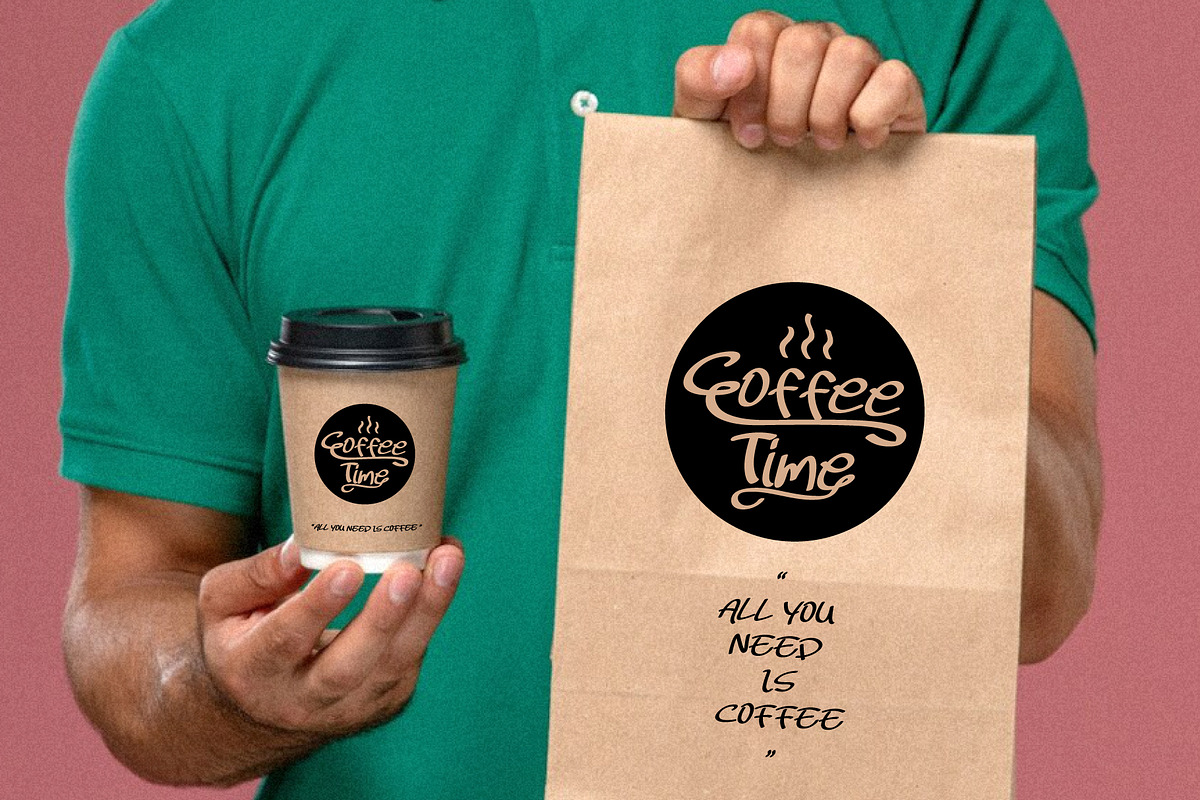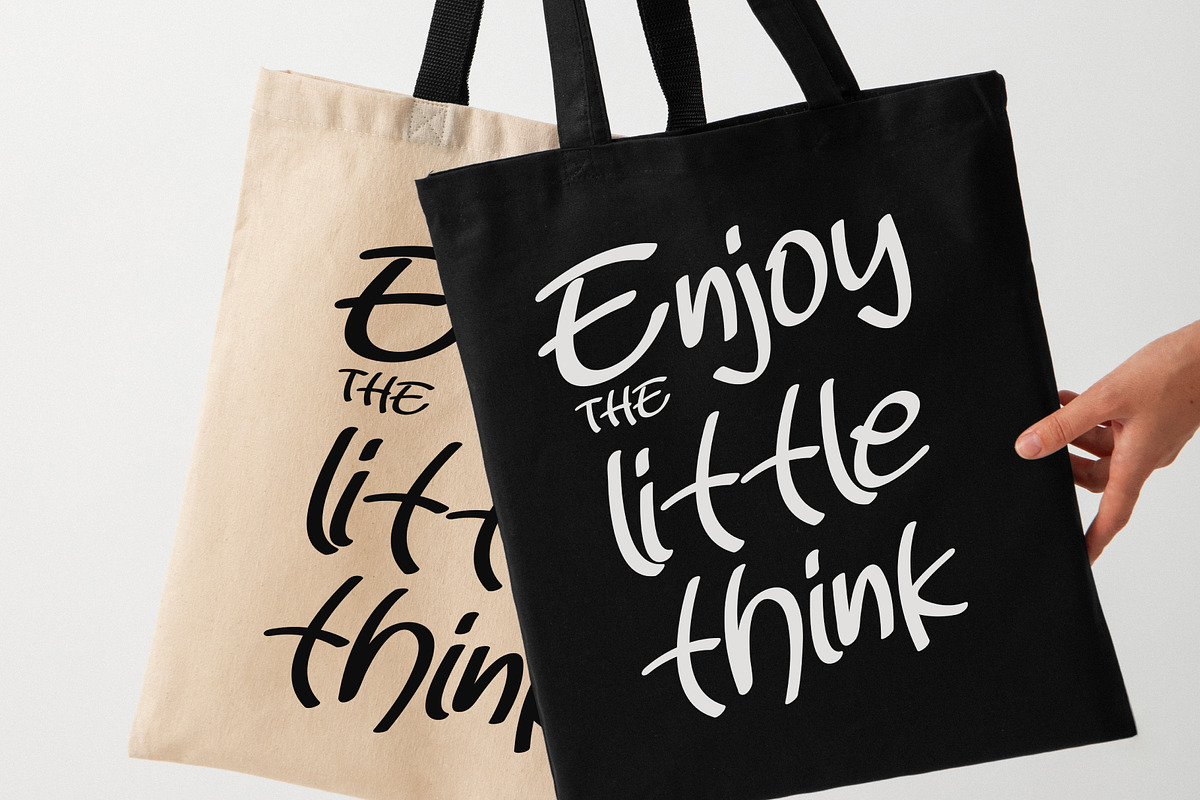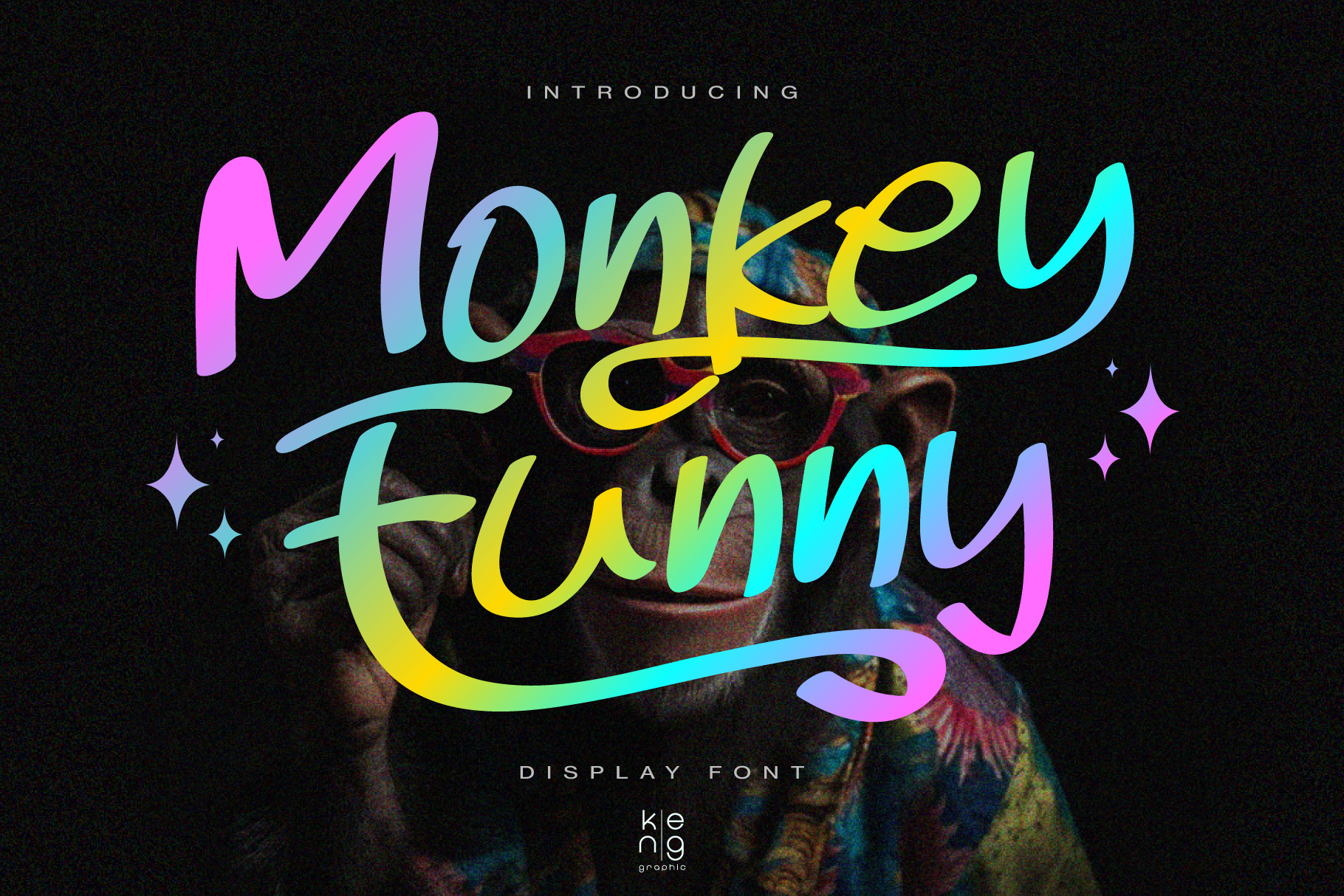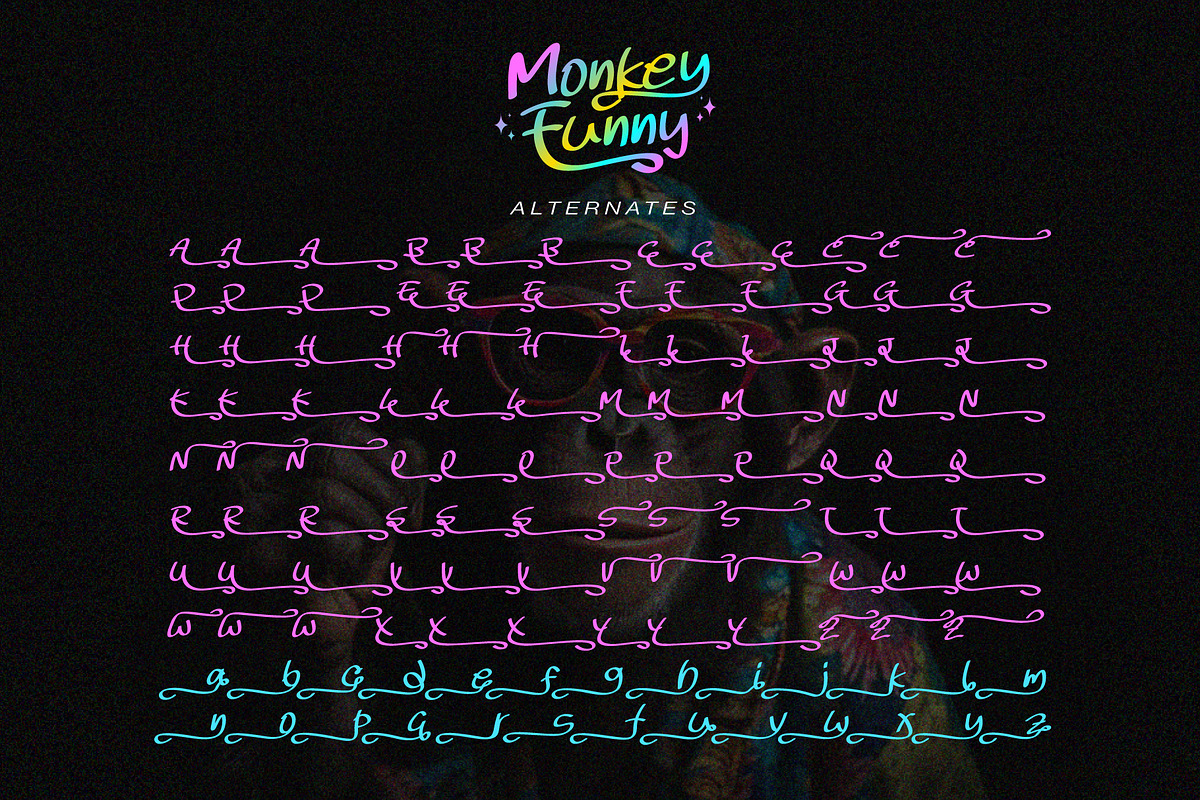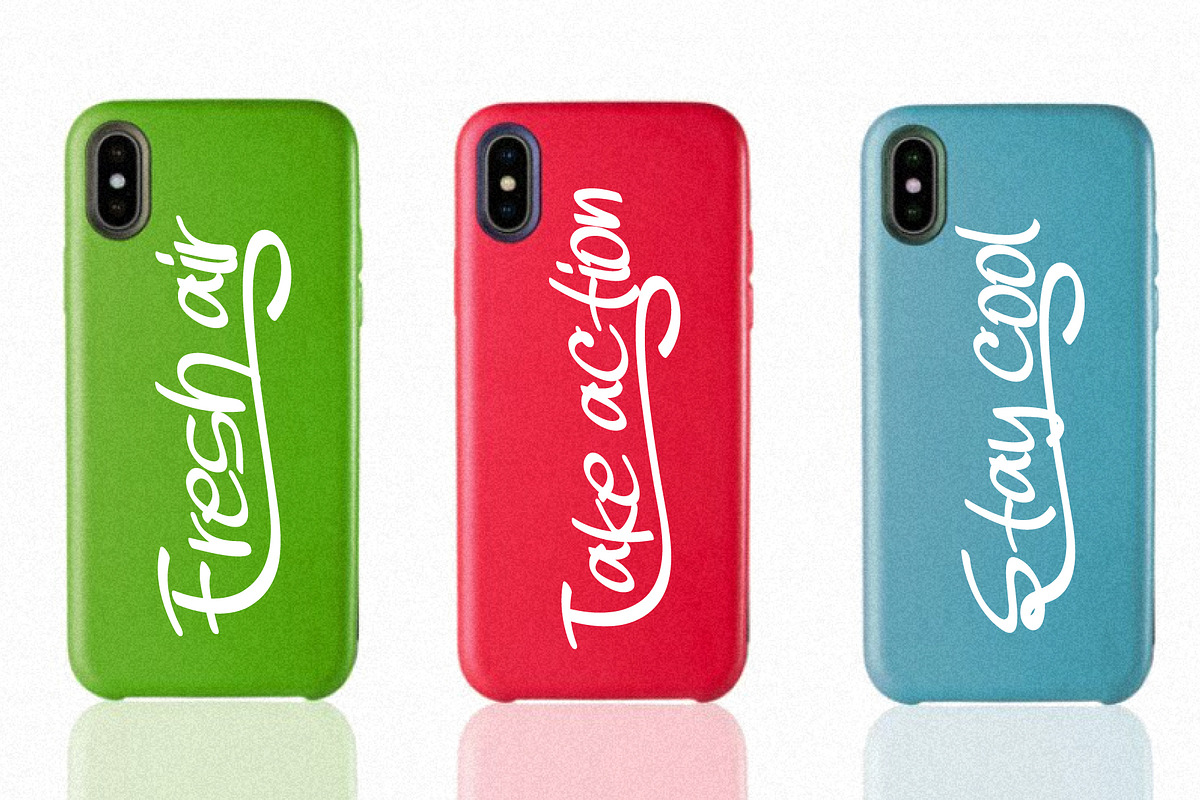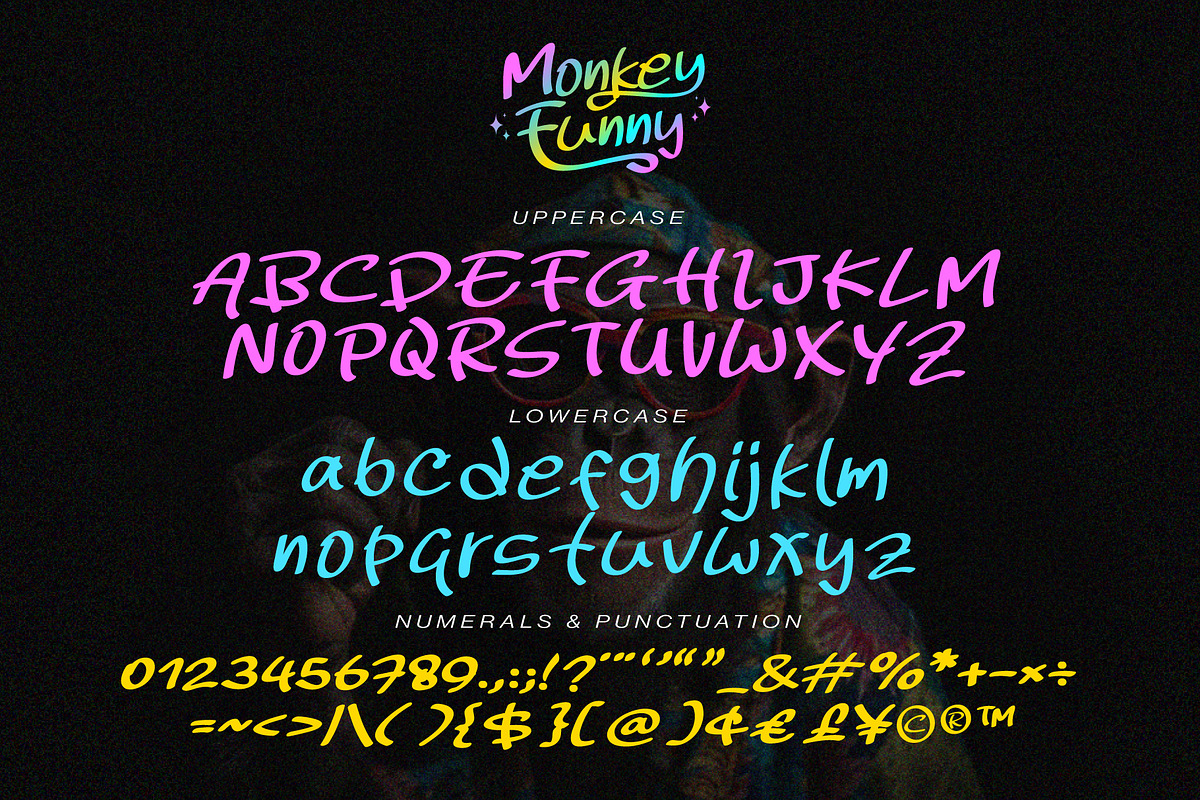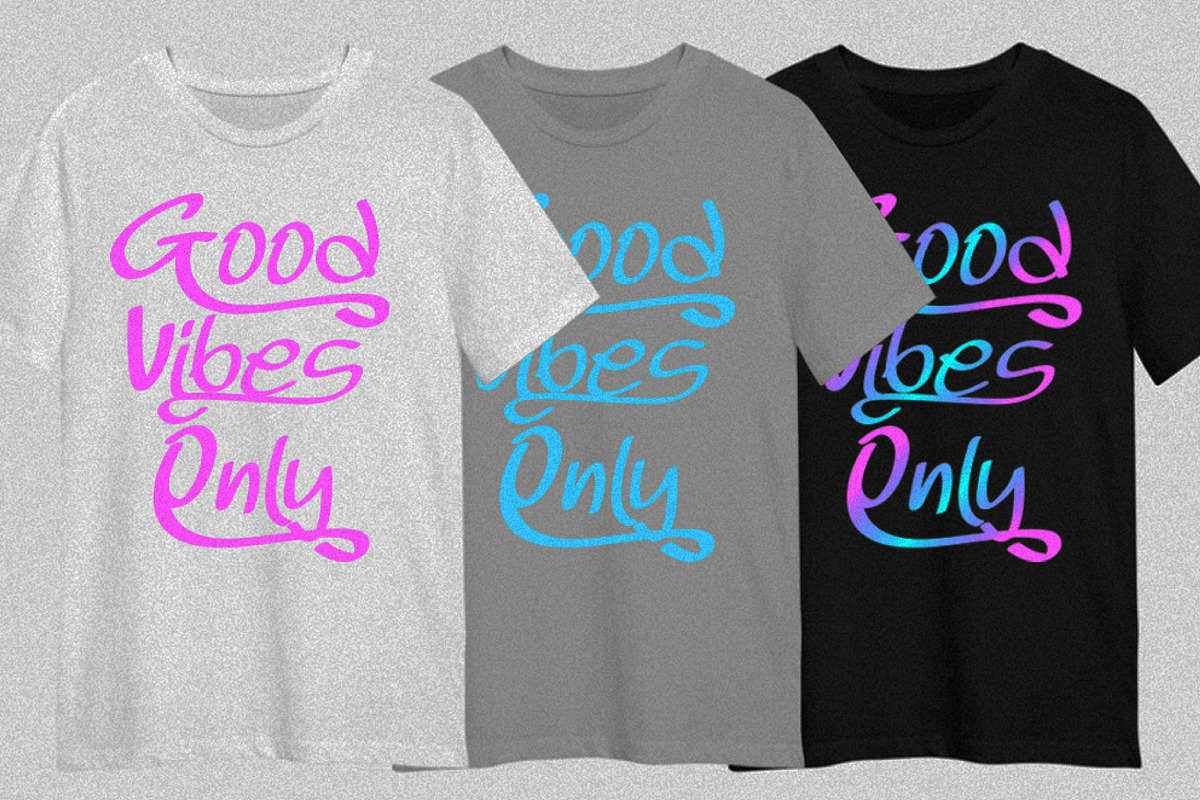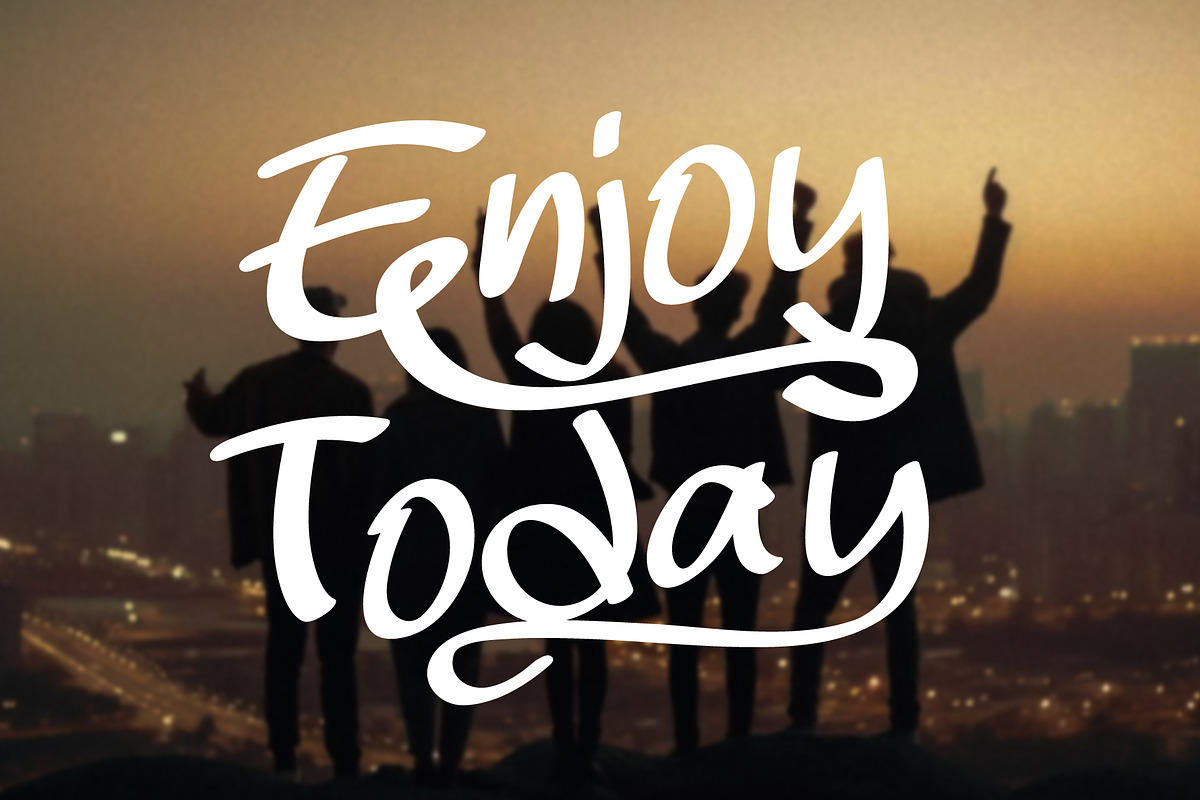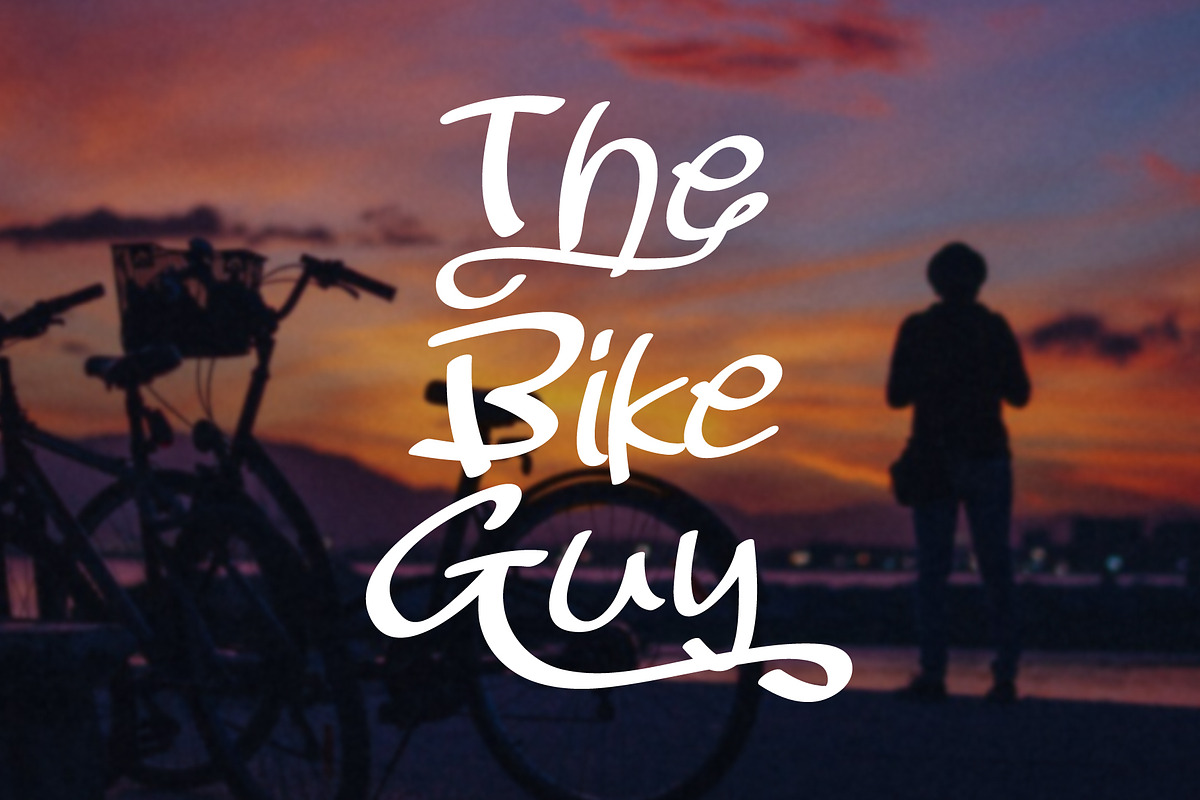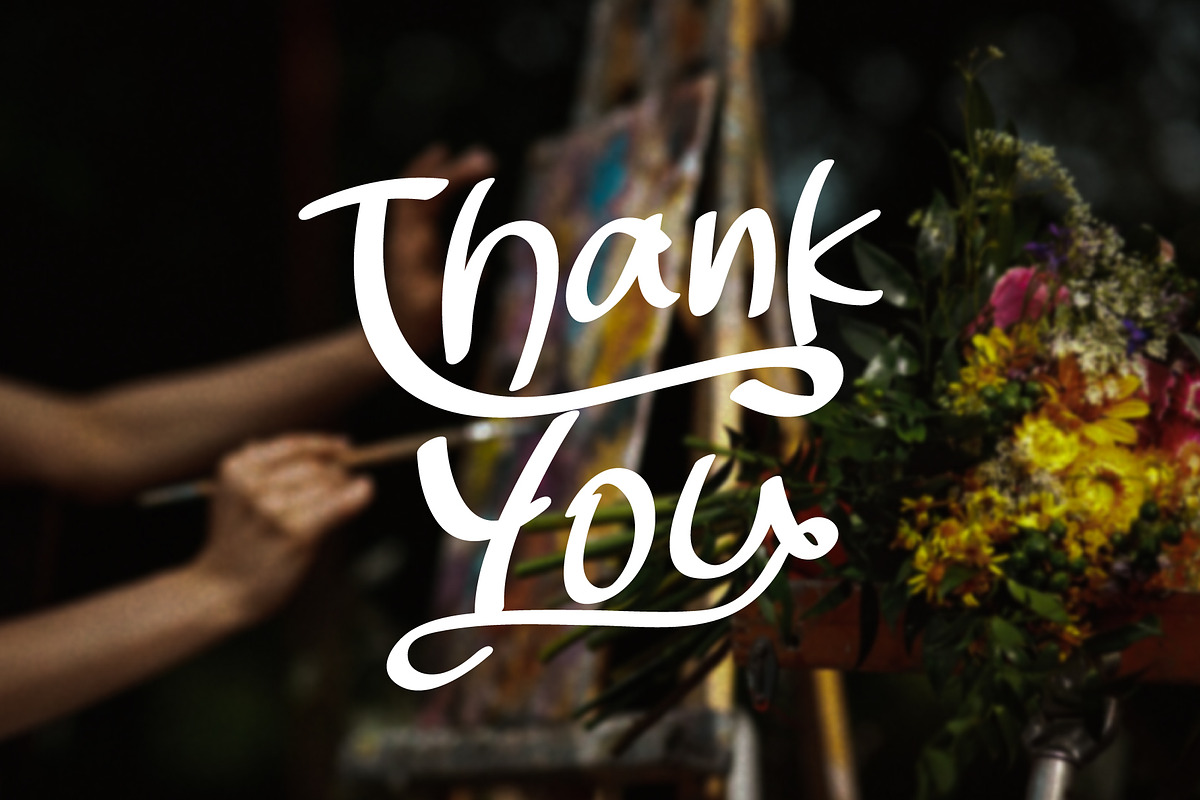
Monkey Funny font
Monkey Funny is a fun and unique display font. Anything written in this font will be instantly recognizable and will grab attention. It will work great for comic book layouts, online games, cards, shirts, hats, bags, mugs, posters, food menus, movie titles, eye-catching social media posts, or anything that requires youthfulness and courage.